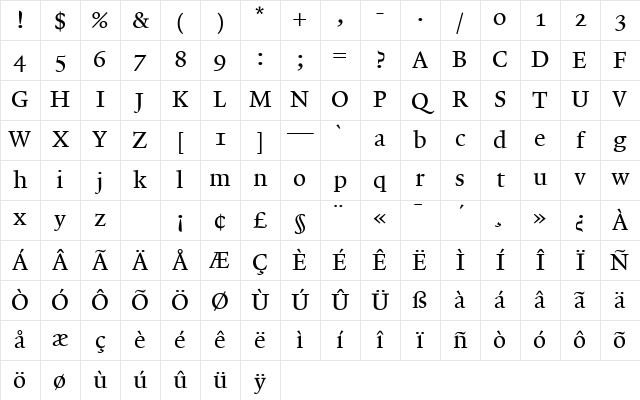
Complete Lexicon No1 Roman A Med glyph index. Displaying only characters natively supported by Lexicon No1 Roman A Med font.
Lexicon No1 is a composed and adaptable typeface that performs quietly and consistently across a wide range of design contexts.